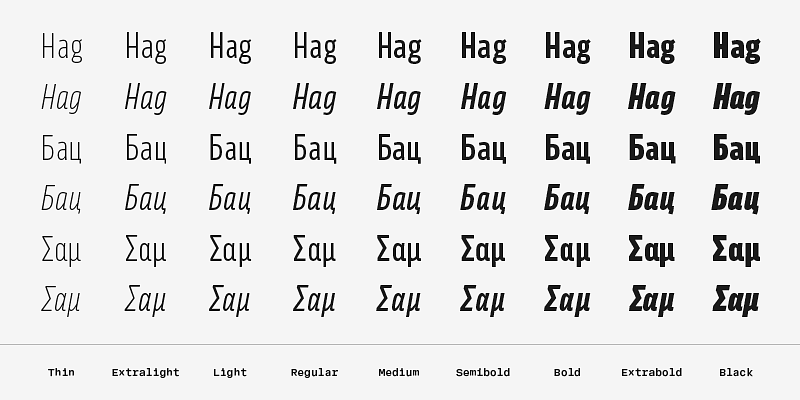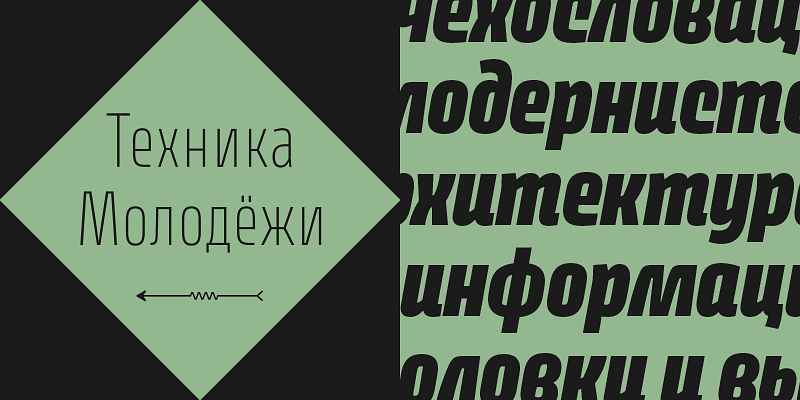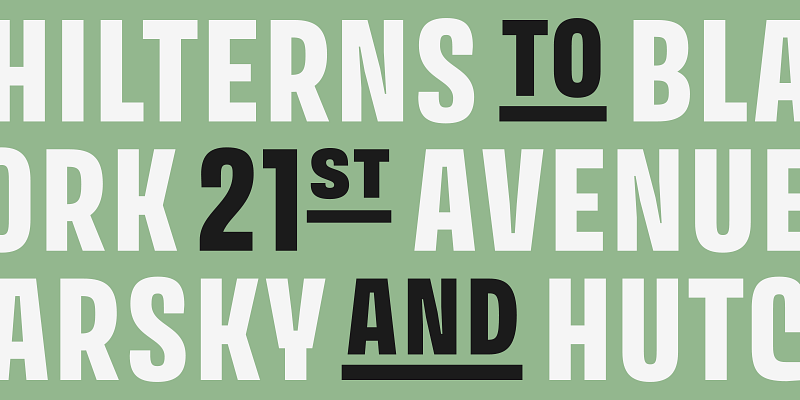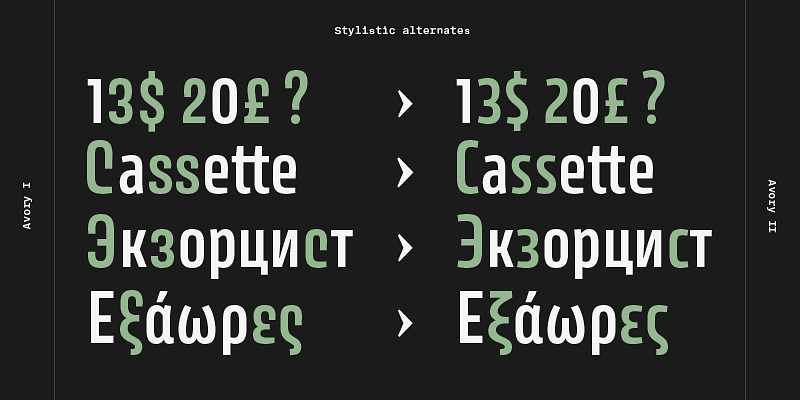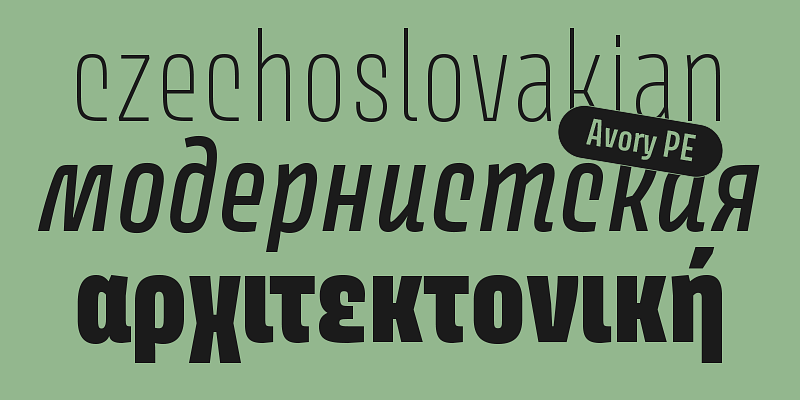
A gently condensed sans that challenges convention takes inspiration from the lettering work of Czech designer Jaroslav Benda, a lesser known treasure of mid-century graphic design.